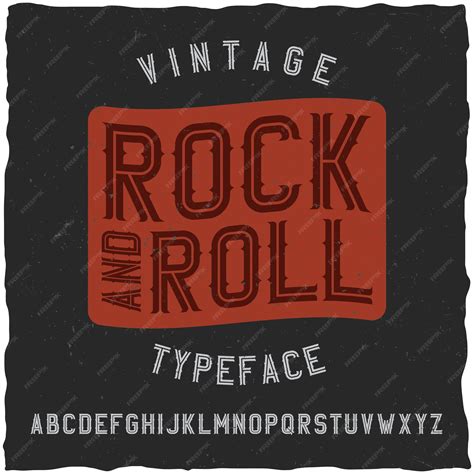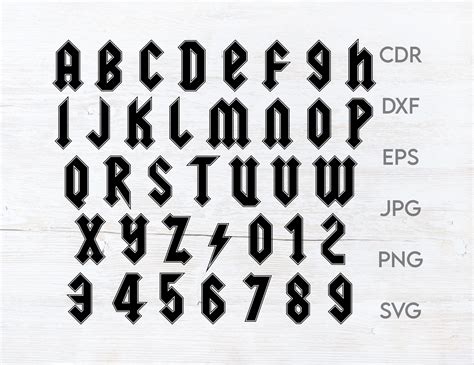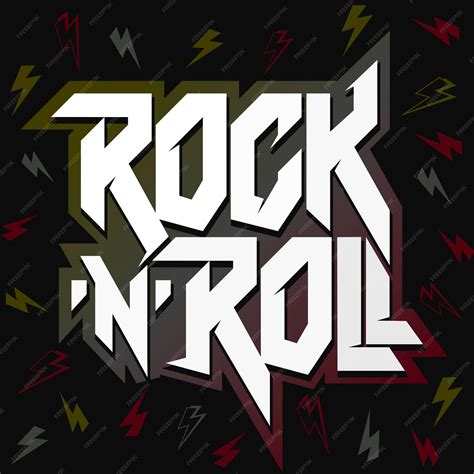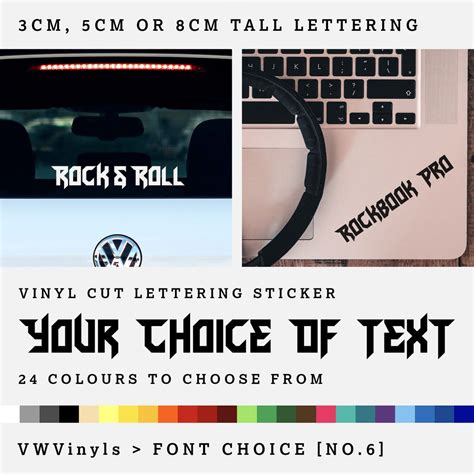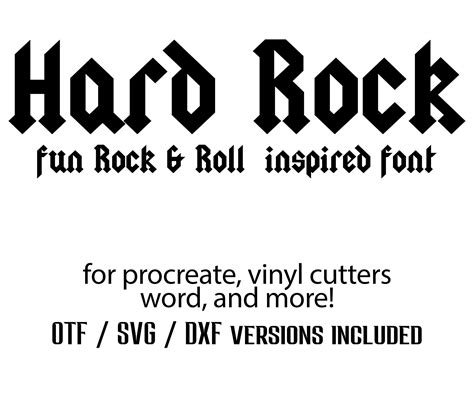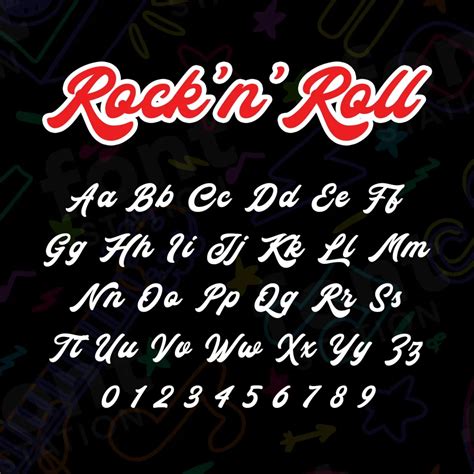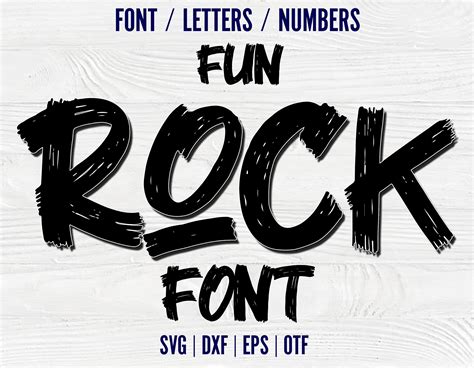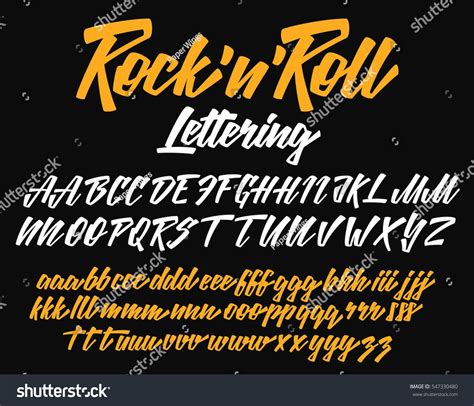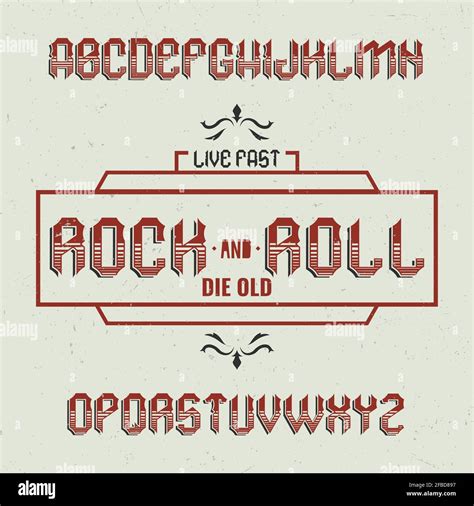
Typography plays a crucial role in design, setting the tone and mood of any project. One of the most iconic and recognizable fonts in the design world is the Rock N Roll Font. This font is synonymous with a rebellious, energetic, and dynamic aesthetic, making it a popular choice for various creative projects. Whether you're designing a concert poster, a band logo, or any project that needs a touch of edgy flair, the Rock N Roll Font can be the perfect fit. Let's dive into the world of Rock N Roll Font, exploring its history, uses, and how to effectively incorporate it into your designs.
Understanding the Rock N Roll Font
The Rock N Roll Font is characterized by its bold, exaggerated, and often hand-drawn style. It evokes the spirit of rock music, with its wild and free-form appearance. This font is not just about the letters; it's about the attitude and energy they convey. The Rock N Roll Font often features:
- Thick, bold strokes
- Irregular, hand-drawn elements
- A sense of movement and dynamism
- Exaggerated, sometimes distorted letterforms
These characteristics make the Rock N Roll Font ideal for projects that need to stand out and grab attention. It's a font that doesn't shy away from being bold and expressive, making it a favorite among designers who want to add a touch of rebellion to their work.
History and Evolution of the Rock N Roll Font
The Rock N Roll Font has its roots in the 1950s and 1960s, a time when rock music was gaining massive popularity. The font style was heavily influenced by the psychedelic and counterculture movements of the era. Designers began to experiment with bold, exaggerated letterforms to reflect the energy and rebellion of rock music. Over the decades, the Rock N Roll Font has evolved, incorporating elements from various design trends while maintaining its core characteristics of boldness and dynamism.
Today, the Rock N Roll Font is used in a wide range of applications, from album covers and concert posters to branding and advertising. Its versatility and timeless appeal make it a staple in the design world.
Applications of the Rock N Roll Font
The Rock N Roll Font is incredibly versatile and can be used in various design projects. Here are some popular applications:
- Music Industry: Album covers, concert posters, band logos, and merchandise.
- Advertising: Bold headlines in print and digital ads.
- Branding: Logos and branding materials for companies that want to convey a sense of energy and rebellion.
- Event Promotion: Posters and flyers for events that need to stand out.
- Graphic Design: Illustrations and graphic elements that require a dynamic and expressive touch.
Each of these applications benefits from the bold and energetic nature of the Rock N Roll Font, making it a go-to choice for designers looking to make a statement.
Designing with the Rock N Roll Font
When incorporating the Rock N Roll Font into your designs, there are several best practices to keep in mind. These tips will help you make the most of this dynamic font and ensure your designs stand out.
Choosing the Right Style
The Rock N Roll Font comes in various styles, from classic and bold to more modern and sleek. Choose a style that best fits the mood and message of your project. For example, a classic Rock N Roll Font might be perfect for a retro-themed concert poster, while a more modern style could work well for a contemporary band logo.
Pairing with Other Fonts
The Rock N Roll Font is bold and expressive, so it's important to pair it with fonts that complement its energy without overpowering it. Here are some tips for pairing:
- Use a clean, sans-serif font for body text to balance the boldness of the Rock N Roll Font.
- Consider using a contrasting script font for a touch of elegance and sophistication.
- Avoid pairing the Rock N Roll Font with other bold, expressive fonts, as this can create visual clutter.
Color and Contrast
Color plays a significant role in how the Rock N Roll Font is perceived. Bold, vibrant colors can enhance the font's energy, while more muted tones can create a sense of sophistication. Experiment with different color schemes to find the one that best fits your project.
Contrast is also important. Ensure that the Rock N Roll Font stands out against its background. High contrast can make the font more readable and impactful, while low contrast can create a more subtle effect.
Size and Placement
The size and placement of the Rock N Roll Font can greatly affect its impact. Use large, bold letterforms for headlines and key messages, and smaller sizes for supporting text. Place the font strategically to draw the viewer's eye to important information.
Consider the layout of your design. The Rock N Roll Font can be used as a focal point, drawing attention to a specific area of the design. It can also be used to create a sense of movement and dynamism, guiding the viewer's eye through the design.
Examples of Effective Use
To get a better idea of how the Rock N Roll Font can be used effectively, let's look at some examples: